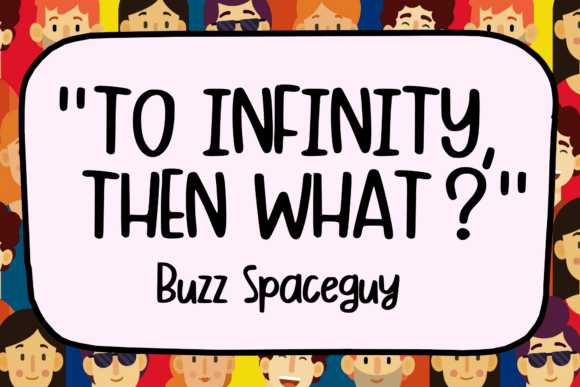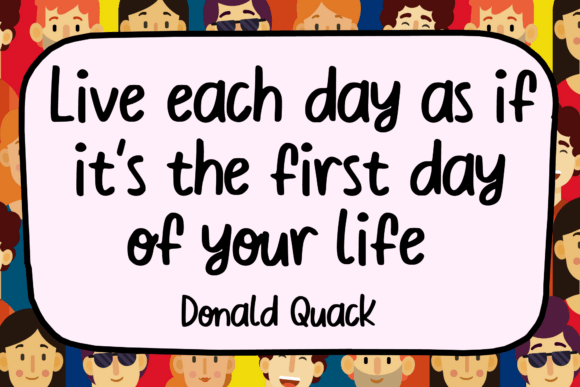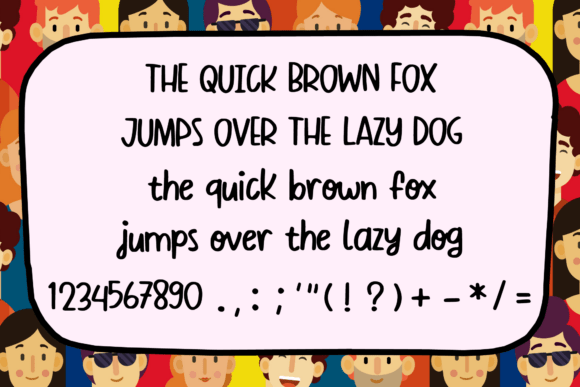
Bring Your Designs to Life with the Perfect Comic Font
Have you ever sat in front of your computer, staring at a blank screen, trying to come up with the perfect font to match your creative vision? We’ve all been there. But what if you could bring your designs to life with a font that’s as playful and fun as you are? That’s where the Befriend Comic Font comes in – a handwritten comic-style font designed to elevate your design projects to the highest level.
This versatile font is perfect for a wide range of design ideas, from stickers and t-shirt designs to logo designs, magazine covers, and comics. Whether you’re a seasoned designer or just starting out, the Befriend Comic Font is a valuable addition to your toolkit. It adds a super cool touch to your designs, making them stand out from the crowd.
Befriend Comic Font Key Features
- Unique Characteristics: Designed to mimic the feel of handwritten text, with subtle imperfections and variations in line width, creating a friendly and approachable tone
Befriend Comic Font Review
Overall, I’d say that the Befriend Comic font is a solid choice for designers who want a friendly, approachable feel in their typography.
The font’s rounded edges and soft curves make it perfect for children’s books, educational materials, and other content that needs a gentle touch.
The font is highly legible, even at smaller font sizes, which makes it a great choice for body text or headings.
The font comes in a variety of weights, from light to bold, giving designers flexibility in choosing the perfect tone for their project.
The font may not be the best choice for formal or professional content, as it can come across as too casual or playful.
The font may not be as versatile as some other fonts, making it less suitable for projects that require a wide range of typography styles.
Overall, I’d give the Befriend Comic font 4 out of 5 stars. It’s a solid choice for designers who want a friendly, approachable feel in their typography, but may not be the best choice for every project.
For the best results, pair Befriend Comic Font with bold or italic text for emphasis. Experiment with different font sizes and colors to create a visually appealing design.
Befriend Comic Font is perfect for creating fun and playful designs, such as:
- Comic strips and cartoons
- Social media graphics and memes